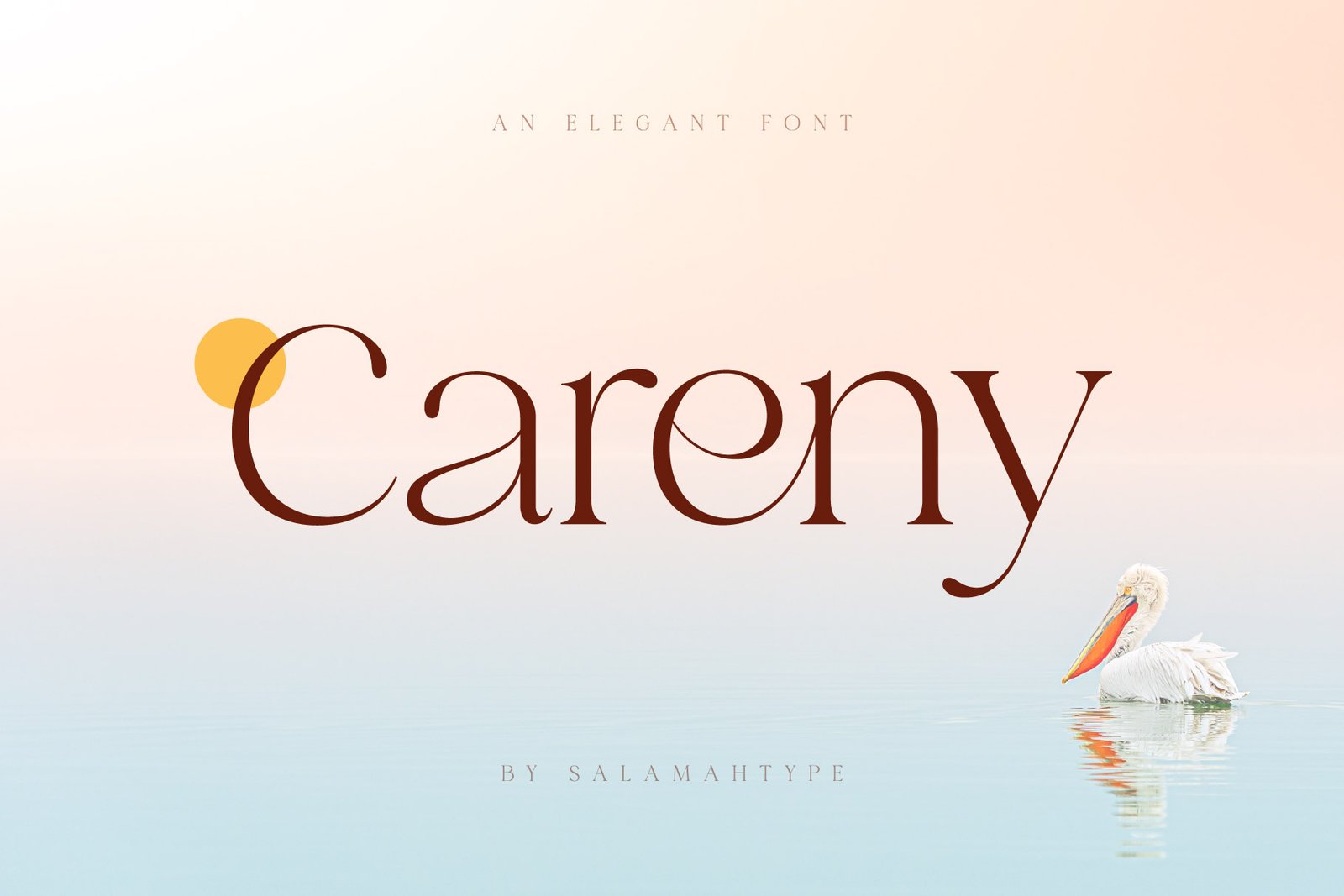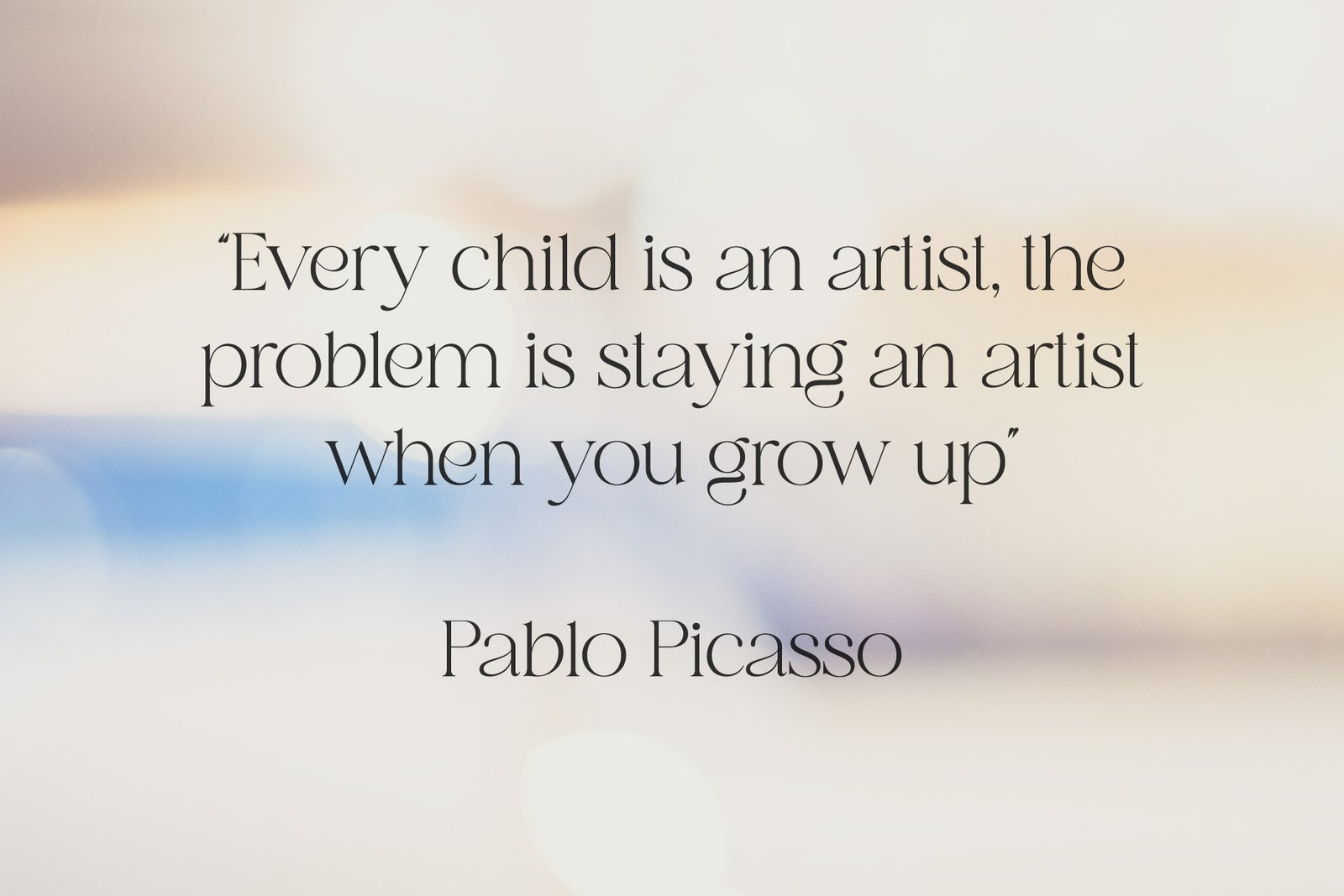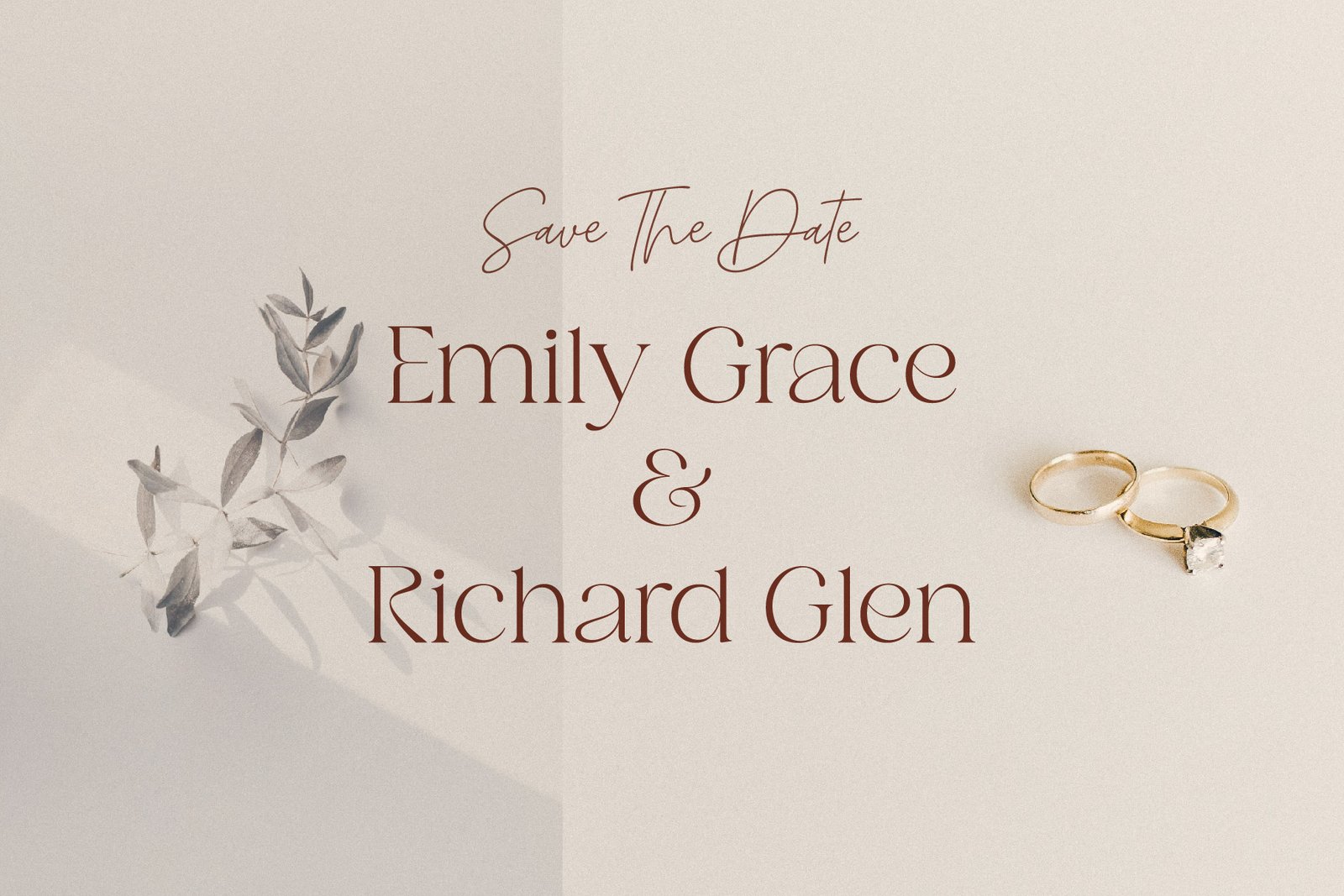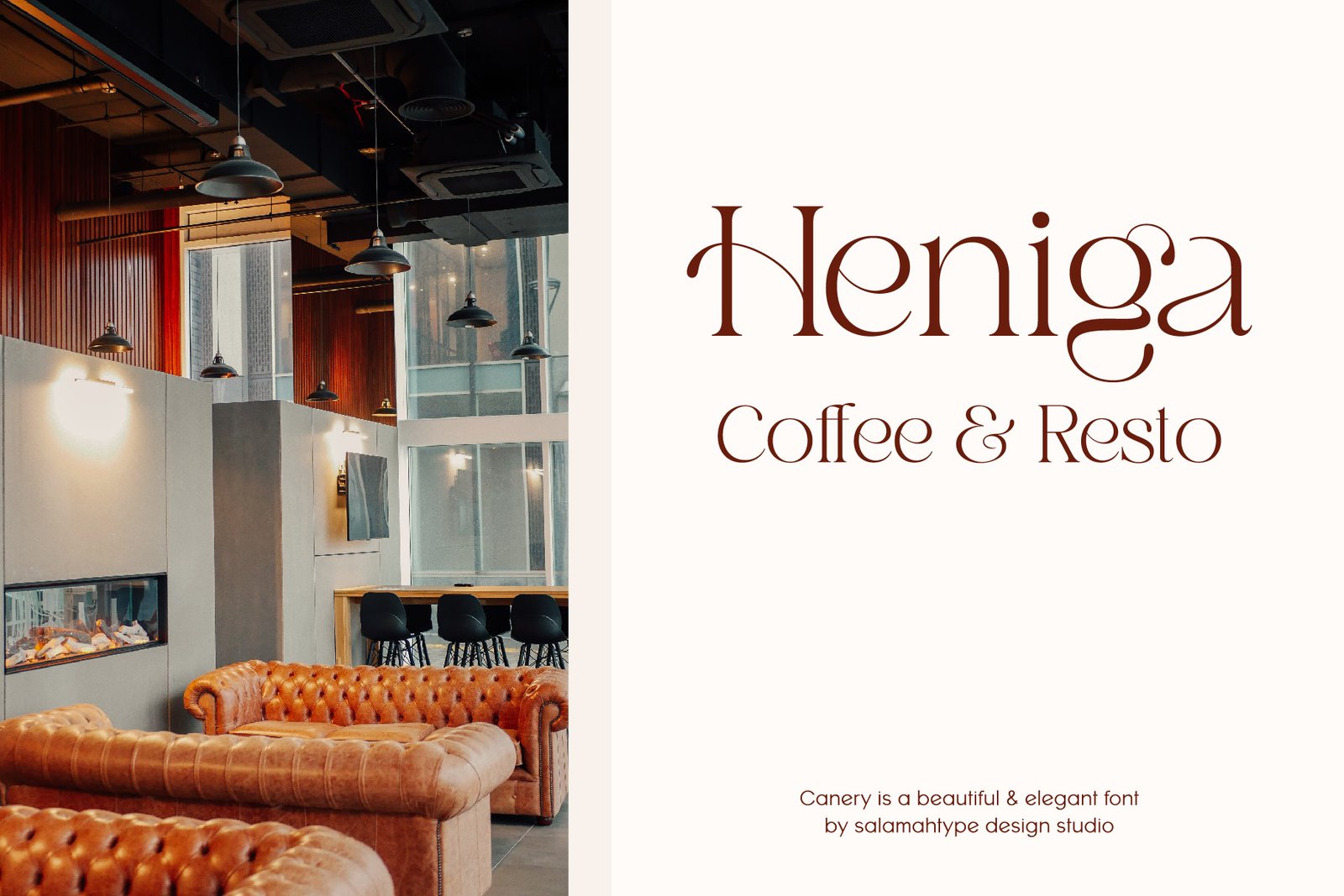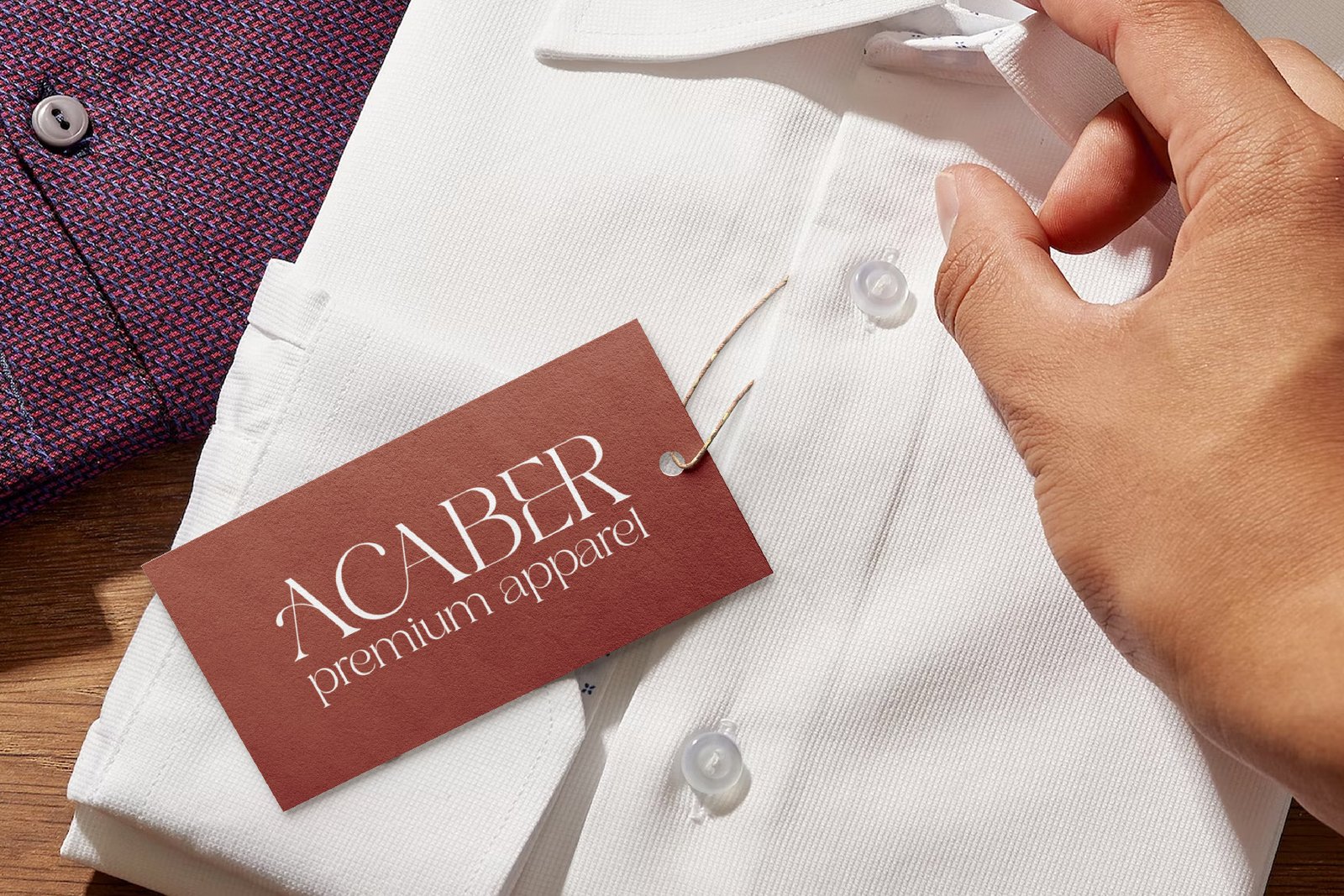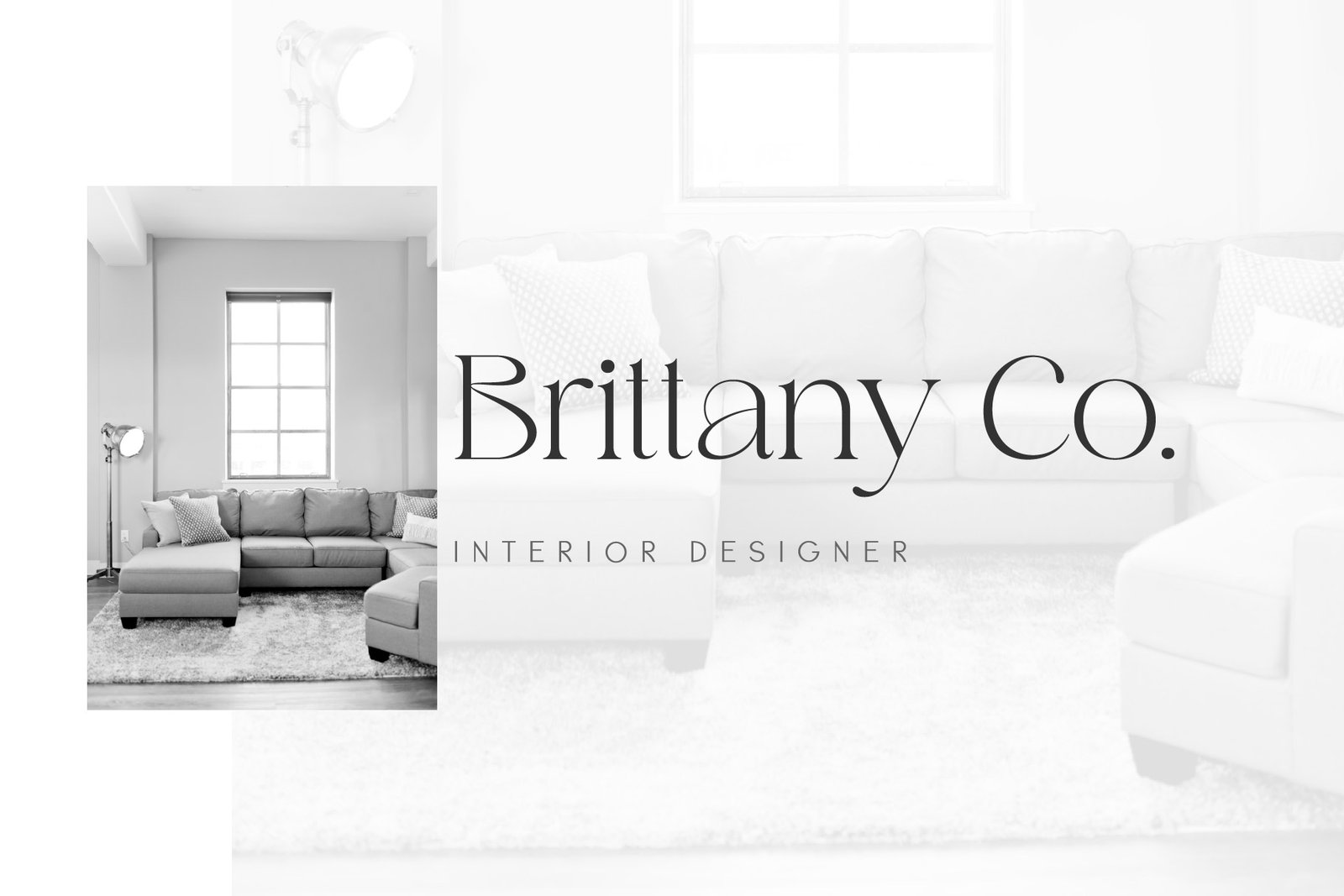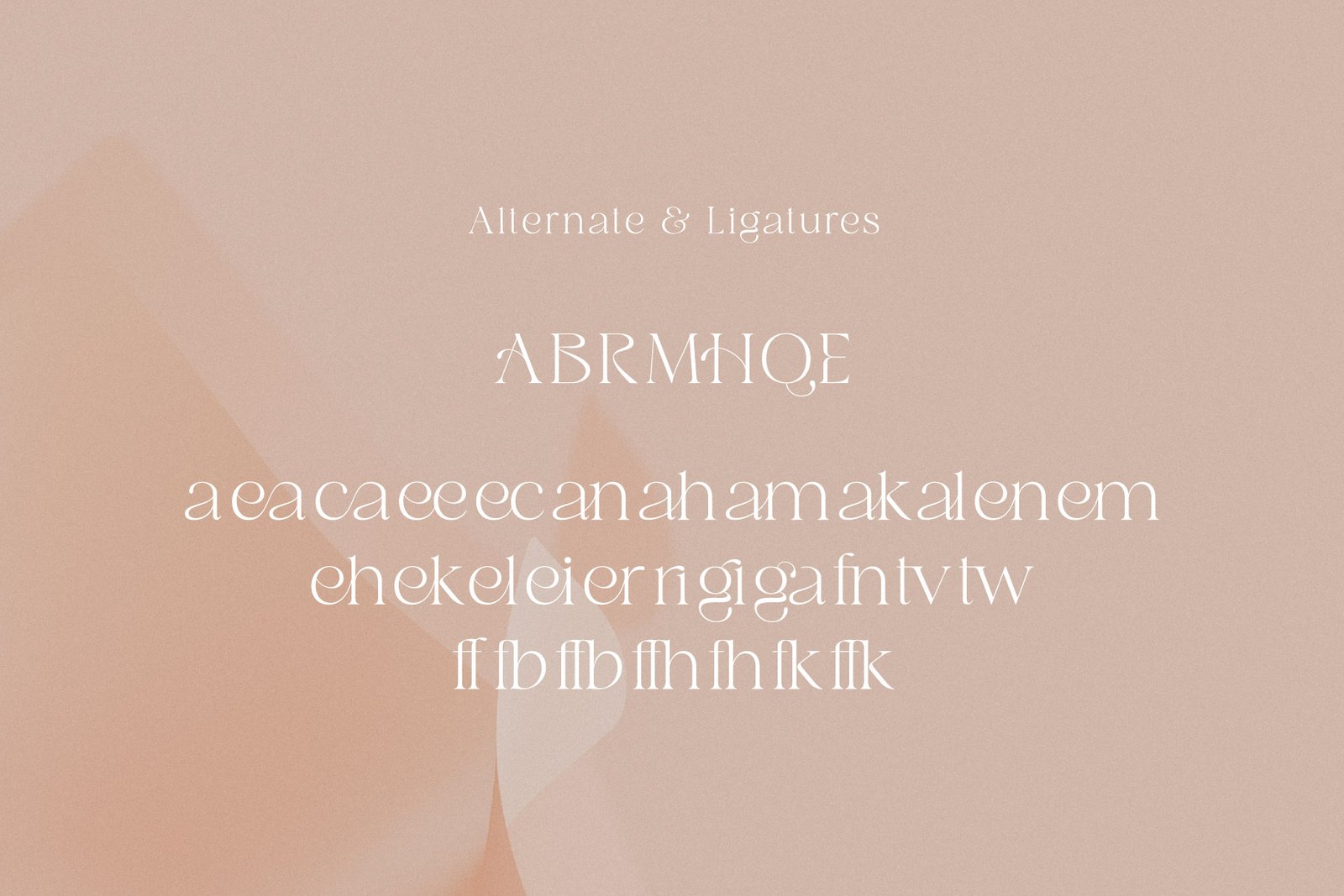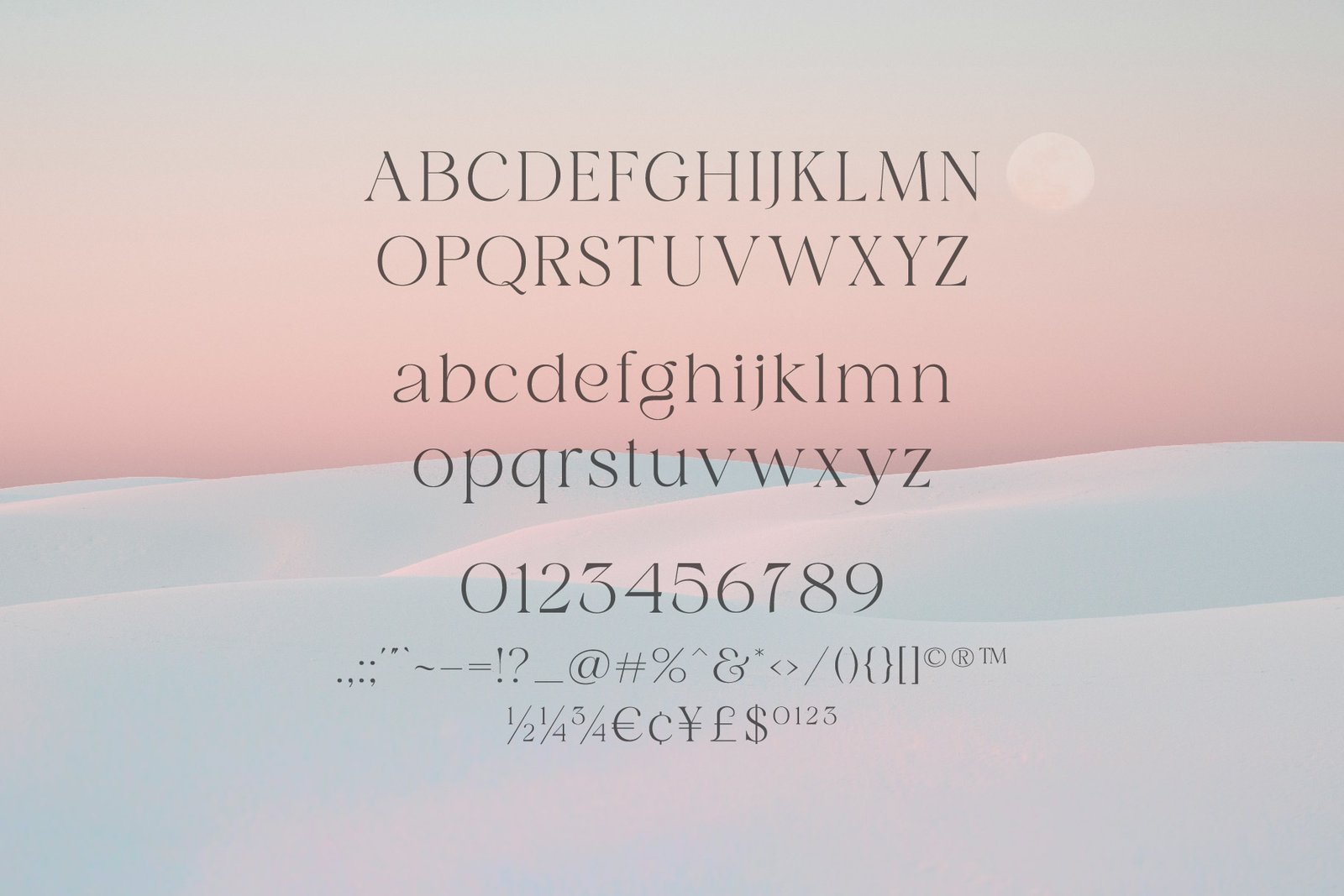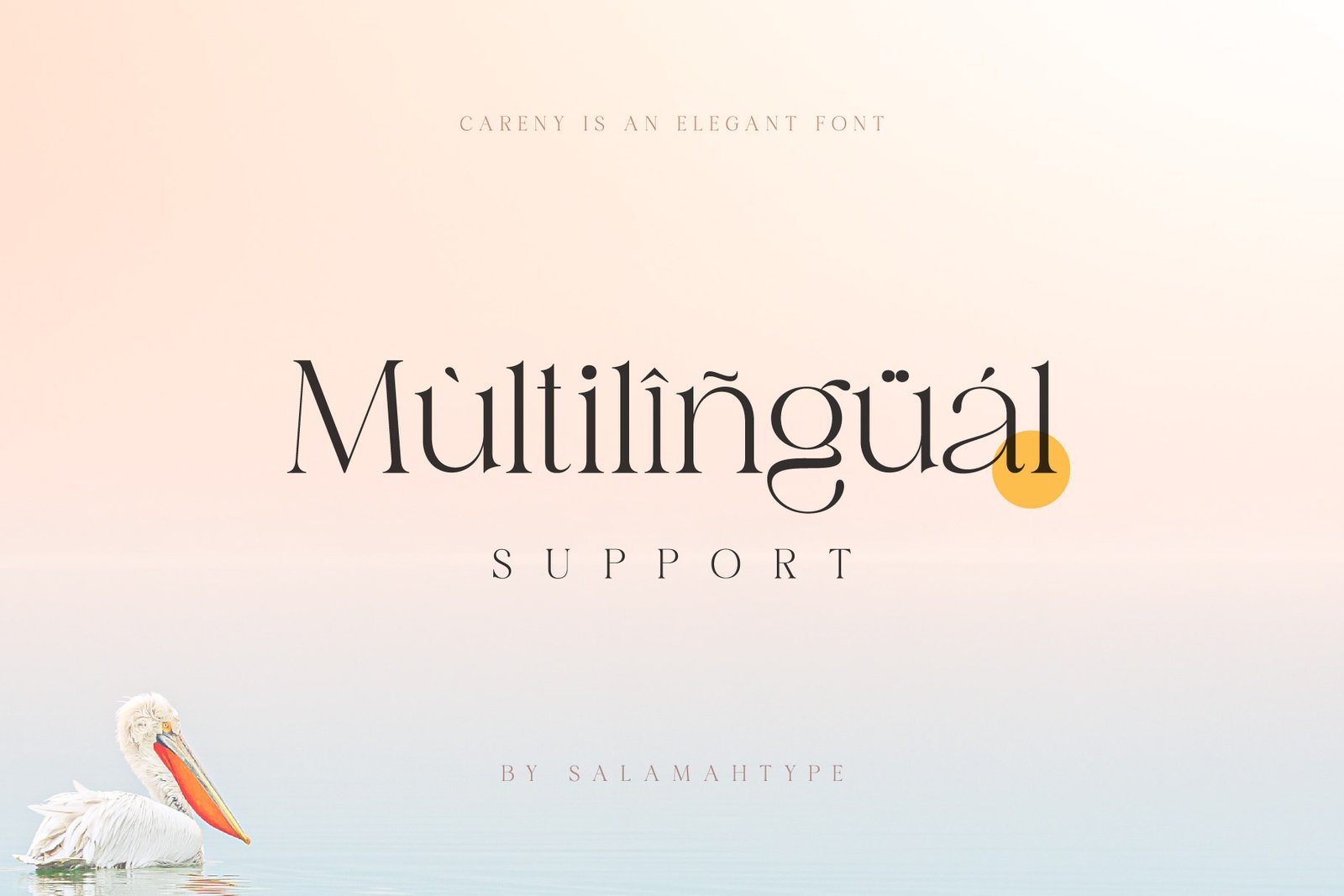
Introducing “Careny” – an elegant and modern typeface. Thias typeface has a refined look due to its sleek shape and perfect curves. Its modern aesthetic lends a touch of sophistication to any project, from magazine layout to logo branding. Careny is the ideal choice for anyone looking for a versatile and fashionable typeface that effortlessly blends traditional elegance with modern design.Careny is perfect for branding projects, logos, social media posts, advertisements, product packaging, wedding invitations, product design, labels, photography, watermarks, stationery, and more.Features :
- Uppercase and lowercase
- 4 Styles ( Regular, Oblique, Bold, Bold Oblique )
- Multilingual support
- Ligatures
- Alternates
Careny Font Family has been updated!
The Careny typeface is now available in four styles for greater flexibility and creative possibilities:
- Careny Regular
- Careny Oblique
- Careny Bold
- Careny Bold Oblique
This update expands the Careny family with additional weights and styles, making it easier to create versatile typography for branding, headlines, posters, packaging, social media designs, and more.